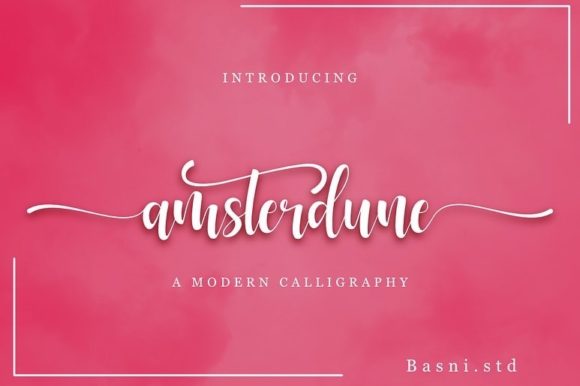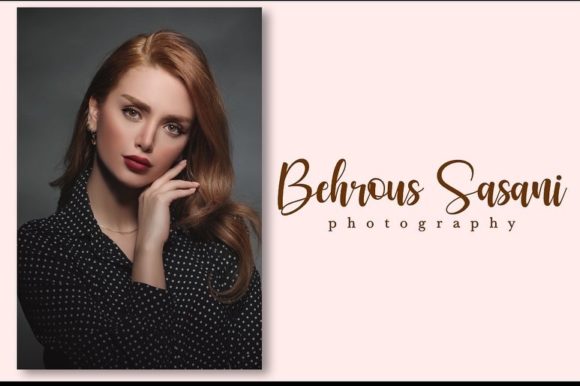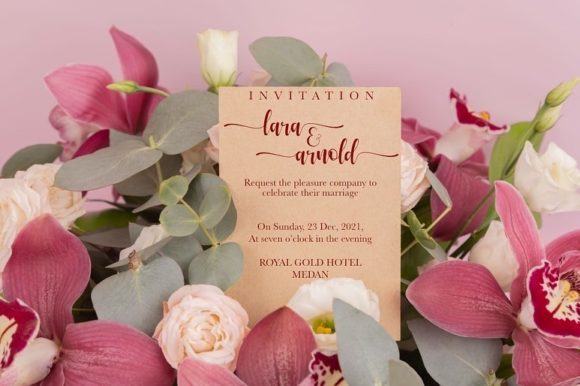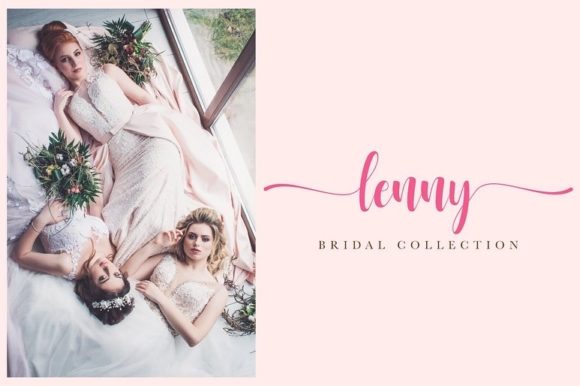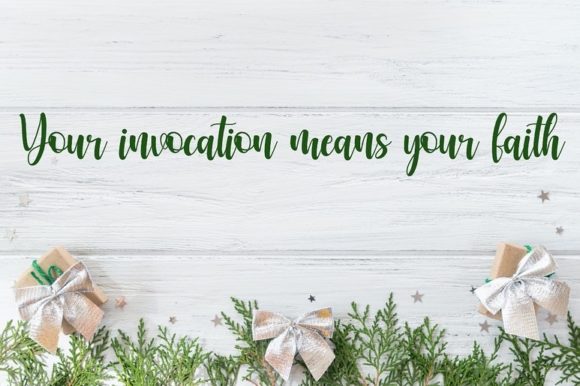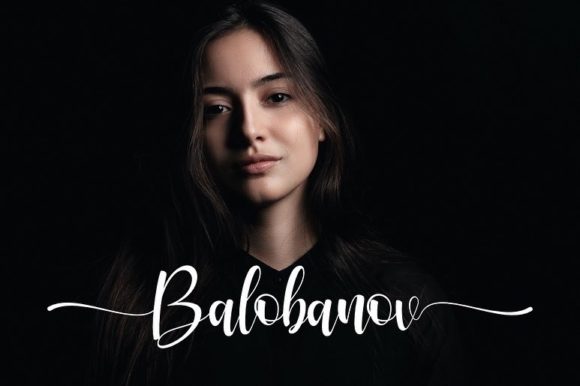
Discover the Elegance of Amsterdune Font: Elevate Your Designs with Charm and Sophistication
In the world of typography, few fonts manage to strike a balance between charm and elegance as effortlessly as Amsterdune. This exquisite font has captured the hearts of designers and crafters alike, and for good reason. Amsterdune feels equally charming and elegant, making it the perfect addition to a wide array of design projects. Whether you’re working on wedding invitations, thank you cards, quotes, greeting cards, logos, business cards, or any other design that requires a customized touch, Amsterdune is sure to impress.
The Versatility of Amsterdune Font
One of the standout features of Amsterdune is its incredible versatility. This font is not limited to a specific style or theme, making it a valuable asset for designers who work on a variety of projects. From formal events like weddings and corporate branding to more casual applications such as greeting cards and quotes, Amsterdune adapts seamlessly. Its elegant strokes and charming details bring a level of sophistication and personality to any design, ensuring that your work stands out.
PUA Encoding for Easy Access to Glyphs and Swashes
Amsterdune takes its usability to the next level with PUA (Private Use Area) encoding. This feature means that accessing all of the glyphs and swashes is incredibly straightforward. For designers and crafters, this translates to a more efficient workflow and the ability to explore a wide range of creative possibilities without the hassle of complicated font management. With Amsterdune, you can easily incorporate intricate details and flourishes into your designs, elevating them from simple text to stunning visual pieces.
Perfect for Wedding and Stationery Designs
Wedding designs and stationery are areas where Amsterdune truly shines. The font’s elegant and charming nature makes it an ideal choice for wedding invitations, save the dates, thank you cards, and other stationery items. It adds a touch of romance and sophistication, setting the tone for what promises to be a beautiful and memorable occasion. Moreover, its readability and aesthetic appeal ensure that your designs are not only beautiful but also effective in communicating your message.
Enhance Your Brand with Amsterdune
For businesses looking to establish a strong brand identity, Amsterdune offers a unique opportunity. Its distinctive look can help your brand stand out in a crowded market, conveying a sense of elegance and professionalism. Whether you’re designing logos, business cards, or marketing materials, Amsterdune can help you create a cohesive and compelling visual identity that resonates with your audience.
Tips for Using Amsterdune Font
- Experiment with Sizes: Amsterdune looks great in various sizes, from large headings to smaller body text. Experiment with different sizes to find the perfect balance for your design.
- Play with Swashes: Take advantage of the PUA encoding to add beautiful swashes and glyphs to your text. This can add a personal touch to your designs and make them more engaging.
- Mix and Match: Don’t be afraid to combine Amsterdune with other fonts. Its elegant nature makes it a great pairing with a wide range of typefaces, allowing you to create visually interesting and dynamic designs.
Amsterdune font is a gem for designers and crafters looking to add a touch of elegance and charm to their work. Its versatility, combined with the ease of use provided by PUA encoding, makes it an excellent choice for a wide range of projects. Whether you’re working on wedding designs, branding, or simply looking for a font that can elevate your creative projects, Amsterdune is definitely worth considering. With its stunning appearance and practical features, Amsterdune is poised to become a favorite in your font collection.